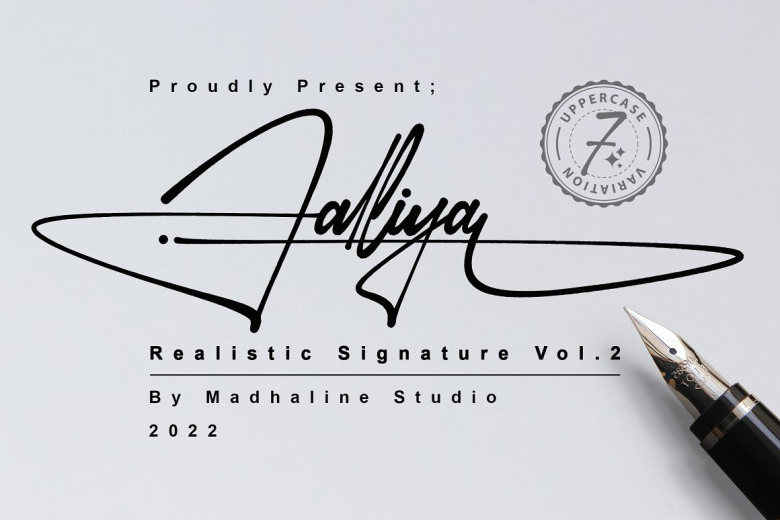
Jalliya Font
Jalliya is a realistic signature font. Volume 2 is that it has its distinctness and specialities relative to a signature font, seeing written manually by handwriting so equivalent to make impression of actual signature. We finely tuned this beautiful font with a contemporary feel. The following example has creative writing that looks luxurious, natural and elegant with a beautiful signature touch.
Jalliya would be perfect for photography, watermark, social media posts, advertisements, logos & branding, invitation, product designs label or anything that need signature taste.
Jalliya Signature Script Font